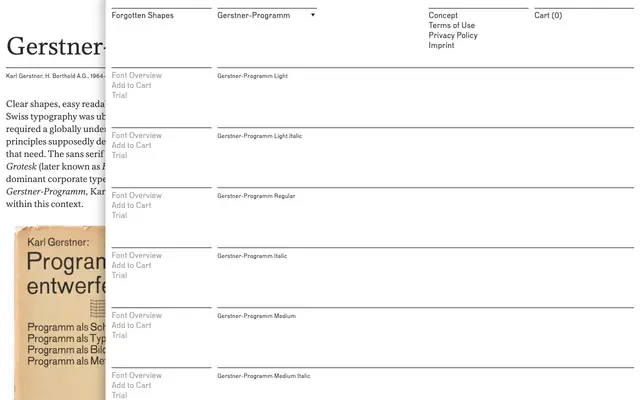
Gerstner-Programm
Forgotten Shapes · Karl Gerstner, Stephan Müller · 1964
A digitisation of Karl Gerstner's 1964–67 phototypesetting grotesque, itself a rigorous parametric expansion of Akzidenz-Grotesk developed for H. Berthold AG.
Originally conceived as a systematic revision of Akzidenz-Grotesk, Gerstner-Programm applied strict mathematical constants to coordinate widths, weights and italics into a coherent family grid. Gerstner defined four gradations each for width and weight, scaled by a factor of 1.25, with italics set at 12 degrees to the vertical. Stephan Müller's digitisation, completed between 2007 and 2017, preserves the structural logic of the original eight styles across Light, Regular, Medium and Bold with matching italics.
Rooted in Akzidenz-Grotesk, Gerstner-Programm is a systematically expanded grotesque family developed for phototypesetting; its parametric grid of widths and weights places it firmly in the Swiss grotesque tradition.